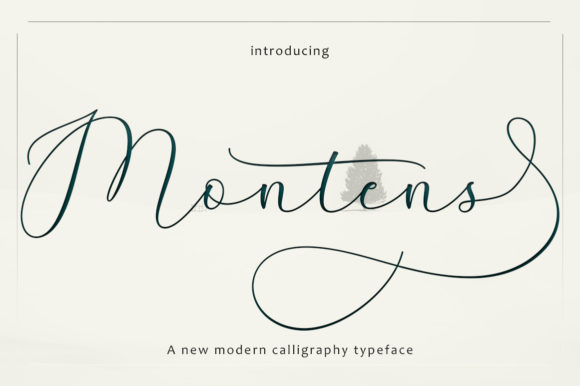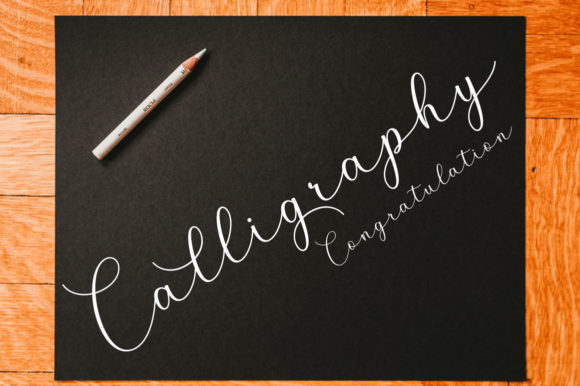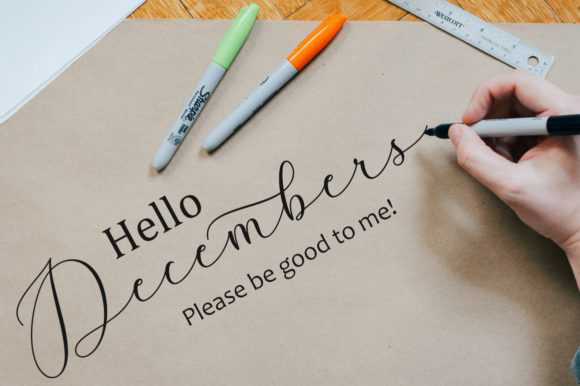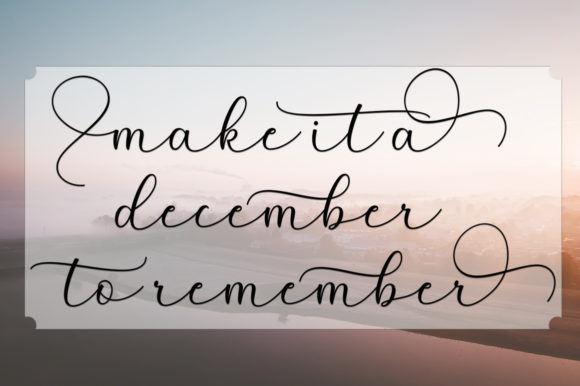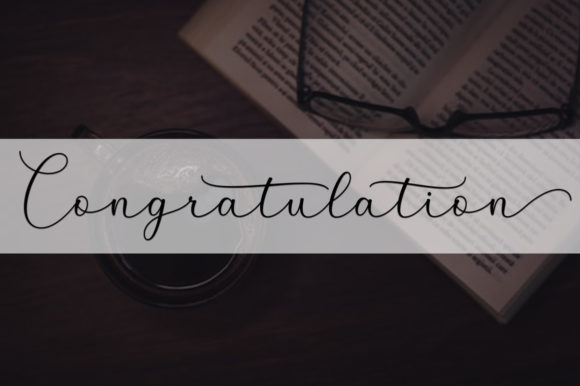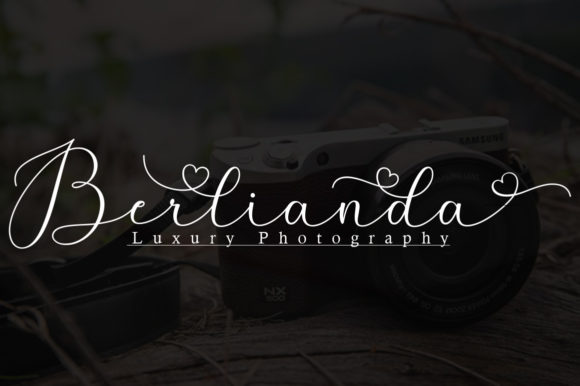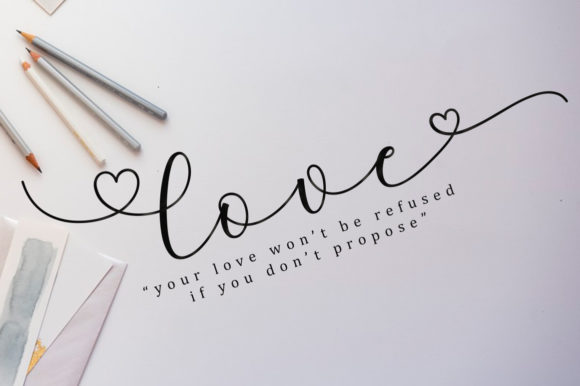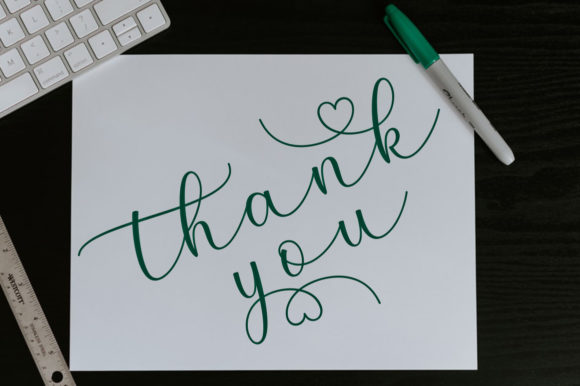
HomeScript FontsMontens Font Script Fonts Montens Font FacebookXPinterestWhatsApp Montens Font Poster 2 Montens Font Poster 3 Montens Font Poster 4 Montens Font Poster 5 Montens Font Poster 6 Montens Font Poster 7 Montens Font Poster 8 About Montens Font Montens is a lovely modern script font. It has beautiful swashes that will take your designs to the next level. DOWNLOAD ON CREATIVE FABRICAThis font is sold and delivered by Creative Fabrica. Font Canyon may earn a commission if you buy through this link. People also explored Kelurahan Font Houston Pen Bird and Roses Monogram Font Douceur Font Gwen Font Delight Font Garden House Font Qainham Plandit Font Cow Black Font 469 0 TagsMontens Font Previous articleMaldina FontNext articleCamelia Font LEAVE A REPLY Cancel reply Comment: Please enter your comment! Name:* Please enter your name here Email:* You have entered an incorrect email address! Please enter your email address here Website: Save my name, email, and website in this browser for the next time I comment. Personal Use Free Where the Cookies Personal Use Free Read more about this font Butter Belly Personal Use Free Read more about this font Blessed Font Personal Use Free Read more about this font Sea Gardens Personal Use Free Read more about this font BLOG Best Fonts for YouTube Videos: Make Your Thumbnails Stand Out Best Fonts for YouTube Videos: Make Your Thumbnails Stand Out Choosing the right font can make a massive difference in how your YouTube videos perform.... Exploring Font Trends Best Fonts for T-Shirt Design – Top 2025 Picks 5 Fonts That Will Dominate Design Trends in 2026